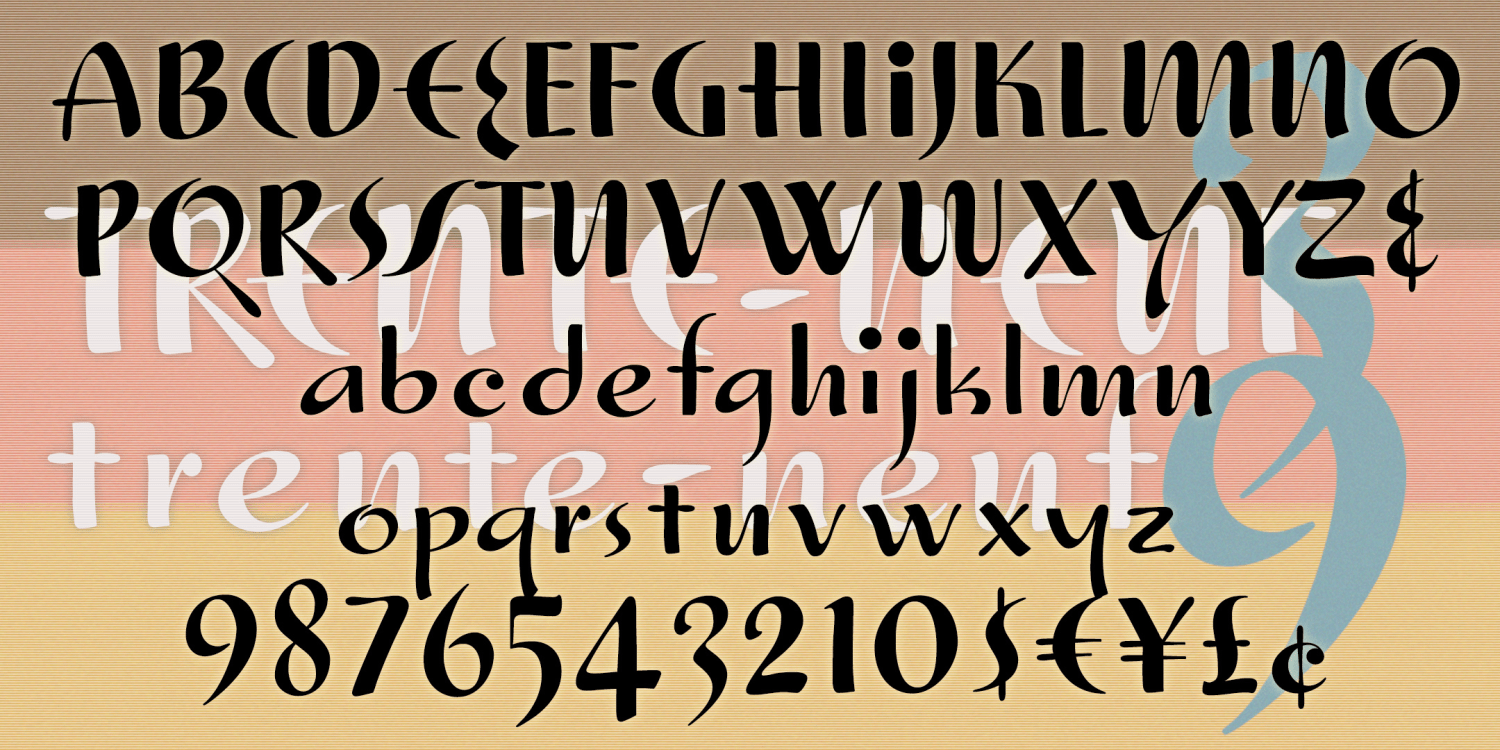
Trente Neuf
About Trente Neuf
Trente Neuf is a fun and fancy font with Art Deco roots. Inspired by examples of hand-lettering from 1939, I strove to maintain the practiced casualness of classic pen and brush work. The fashionable letterforms were a big draw; I've included several…